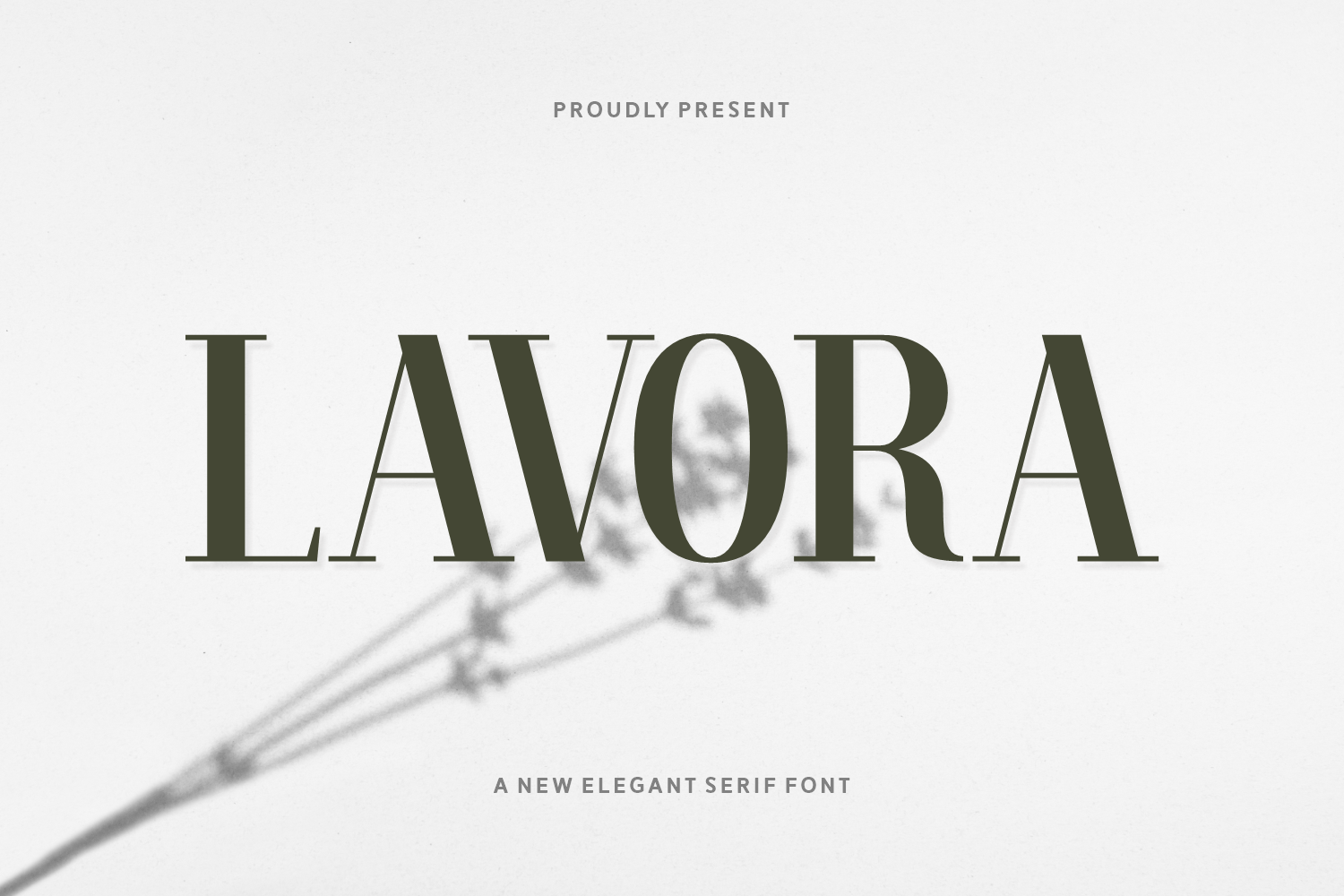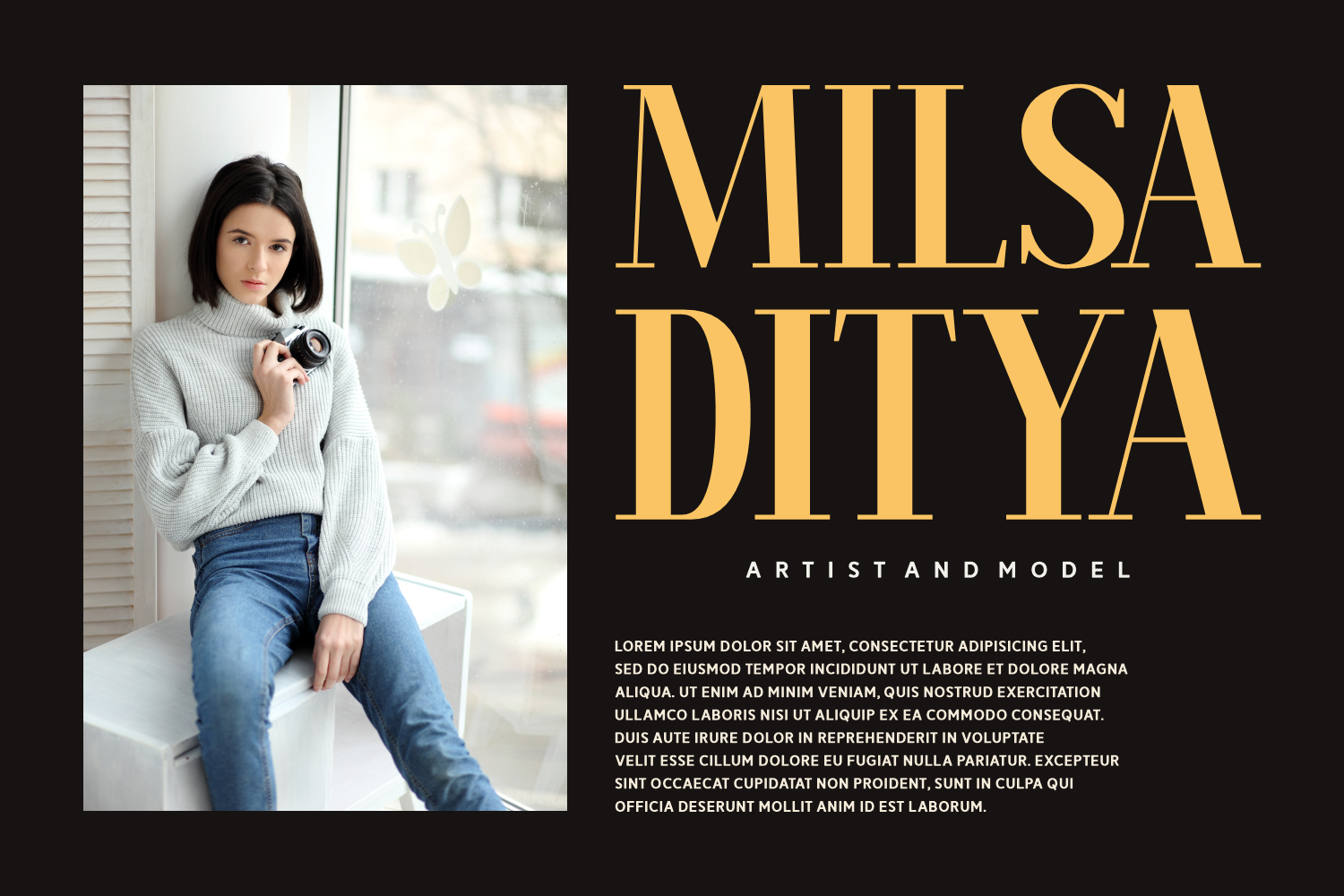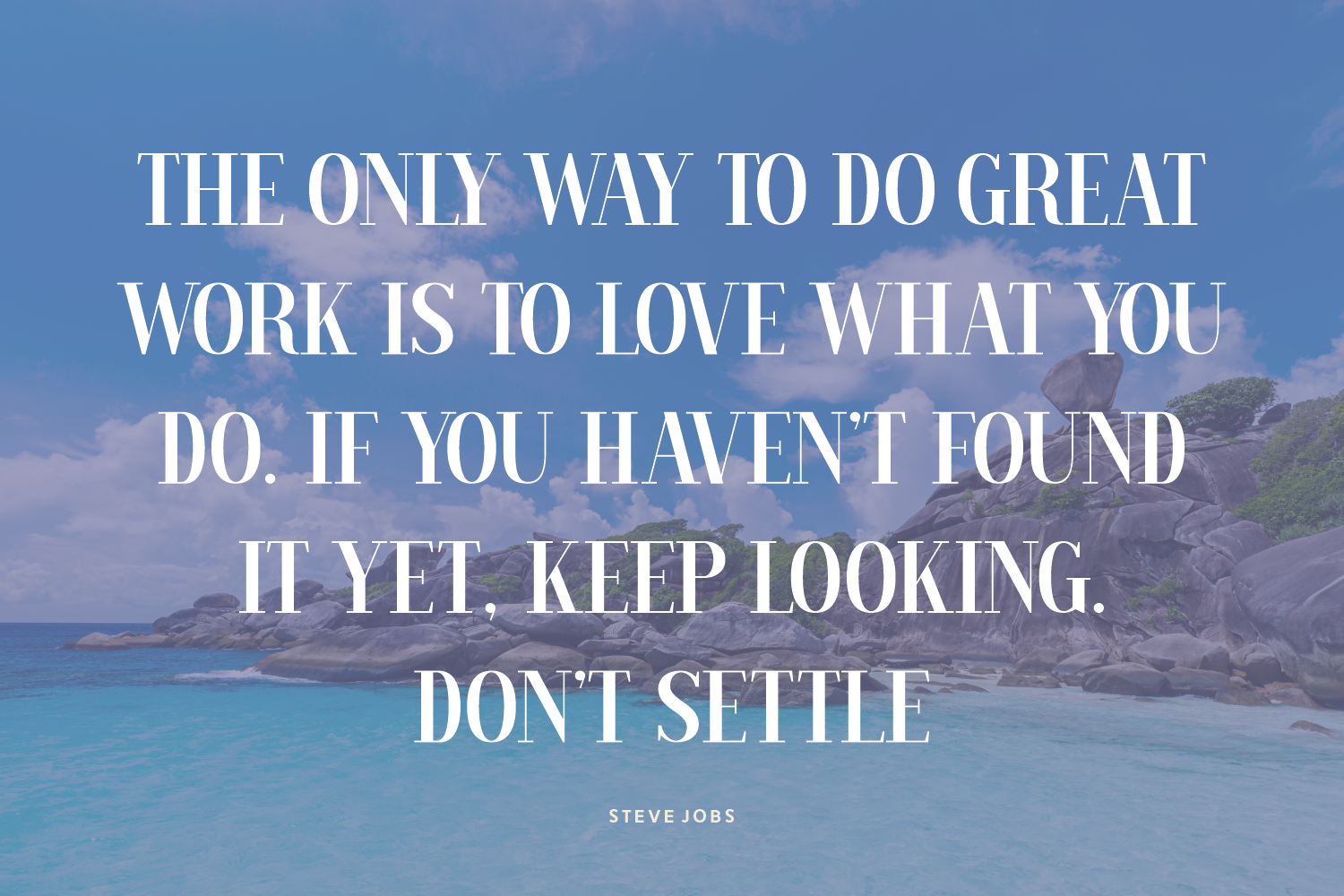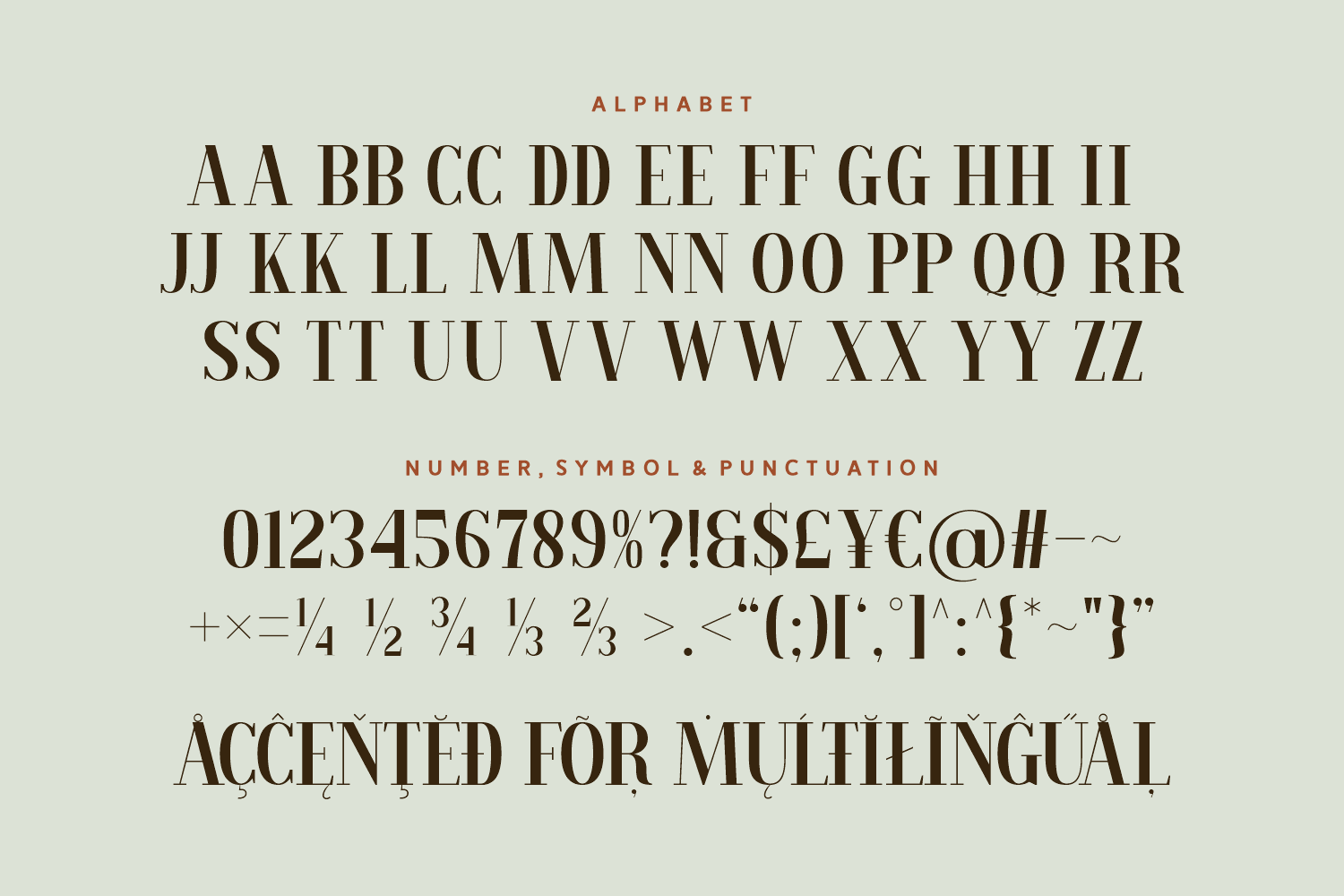
Lavora is a refined serif font that exudes timeless sophistication with a touch of modern flair. Lavora brings elegance and professionalism to any design while offering full multilingual support and stylish punctuation. Its clean lines and graceful presence make it a go-to choice for designers seeking both beauty and clarity.